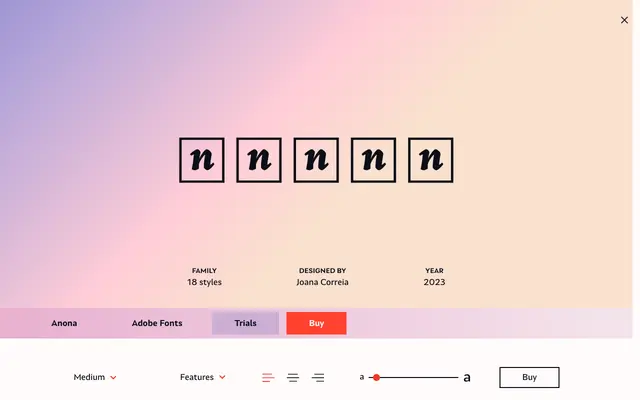
Anona
Nova Type Foundry · Joana Correia · 2023
An upright italic sans serif by Joana Correia with handwriting-influenced letterforms aimed at packaging and playful brand identities.
Designed by Joana Correia and released in 2023, Anona draws on calligraphic construction to produce a sans serif whose upright roman styles carry the character of italic forms. The family spans nine weights from Thin to Black, each with a matching italic, and covers Latin Extended, Cyrillic and Greek. Stylistic sets expose alternate letterforms that shift the tone between fruity and warm, making it useful for identity and packaging work that wants personality without overt script fussiness.
Anona is an upright italic sans serif with visible handwriting influences, giving it a humanist warmth that distinguishes it from geometric or grotesque models. The organic letterforms and calligraphic construction place it firmly in the humanist sans category.